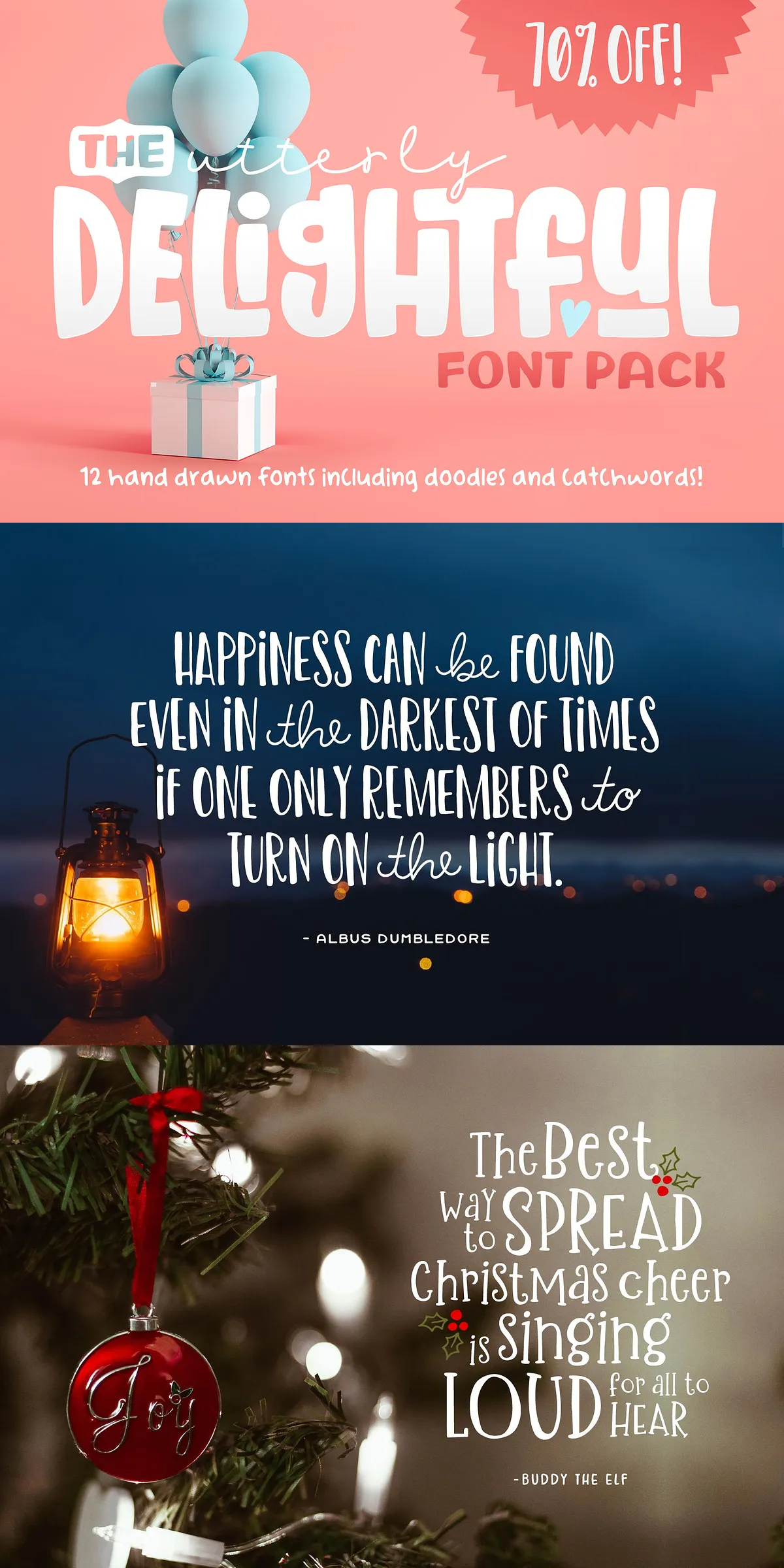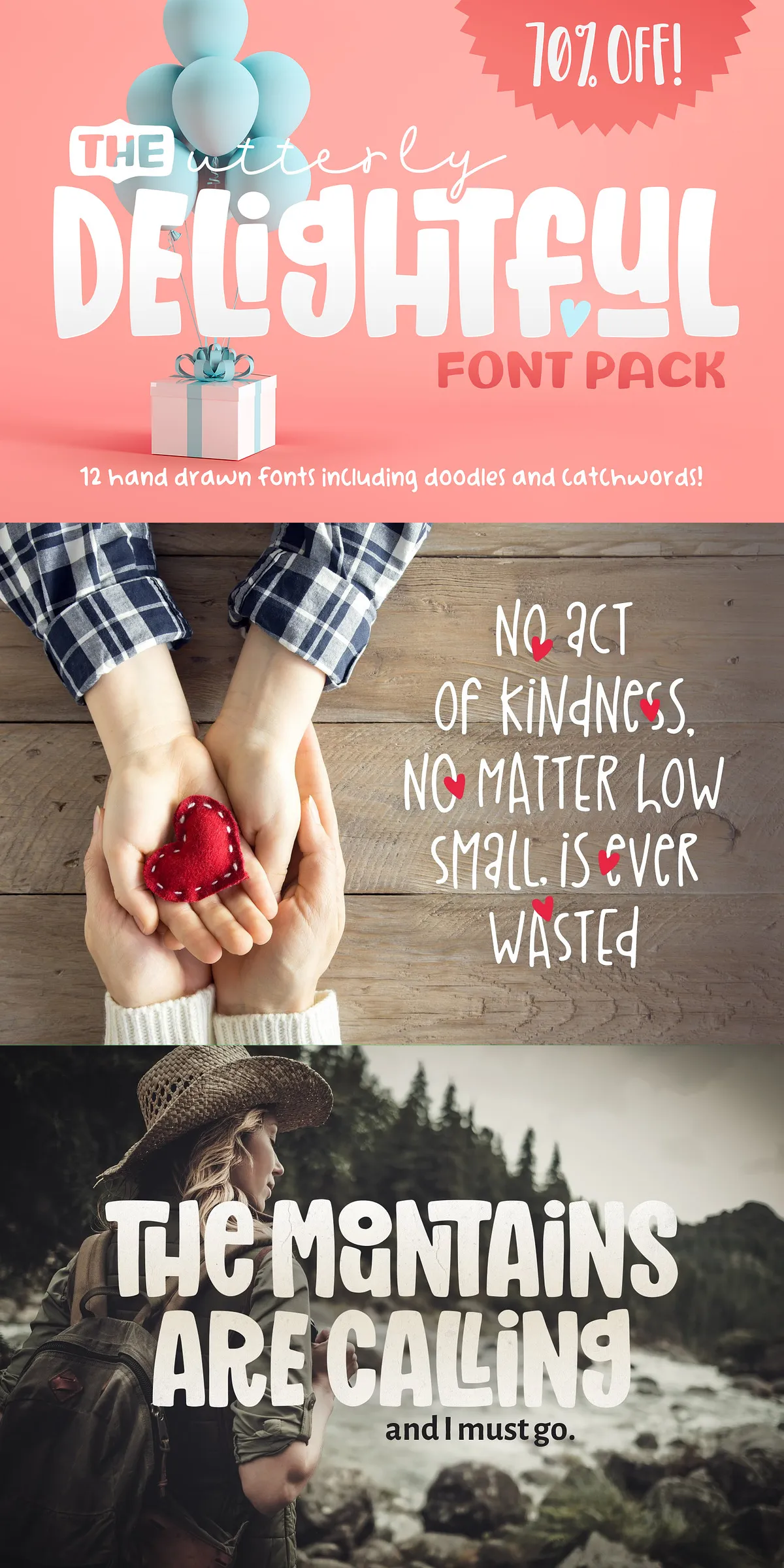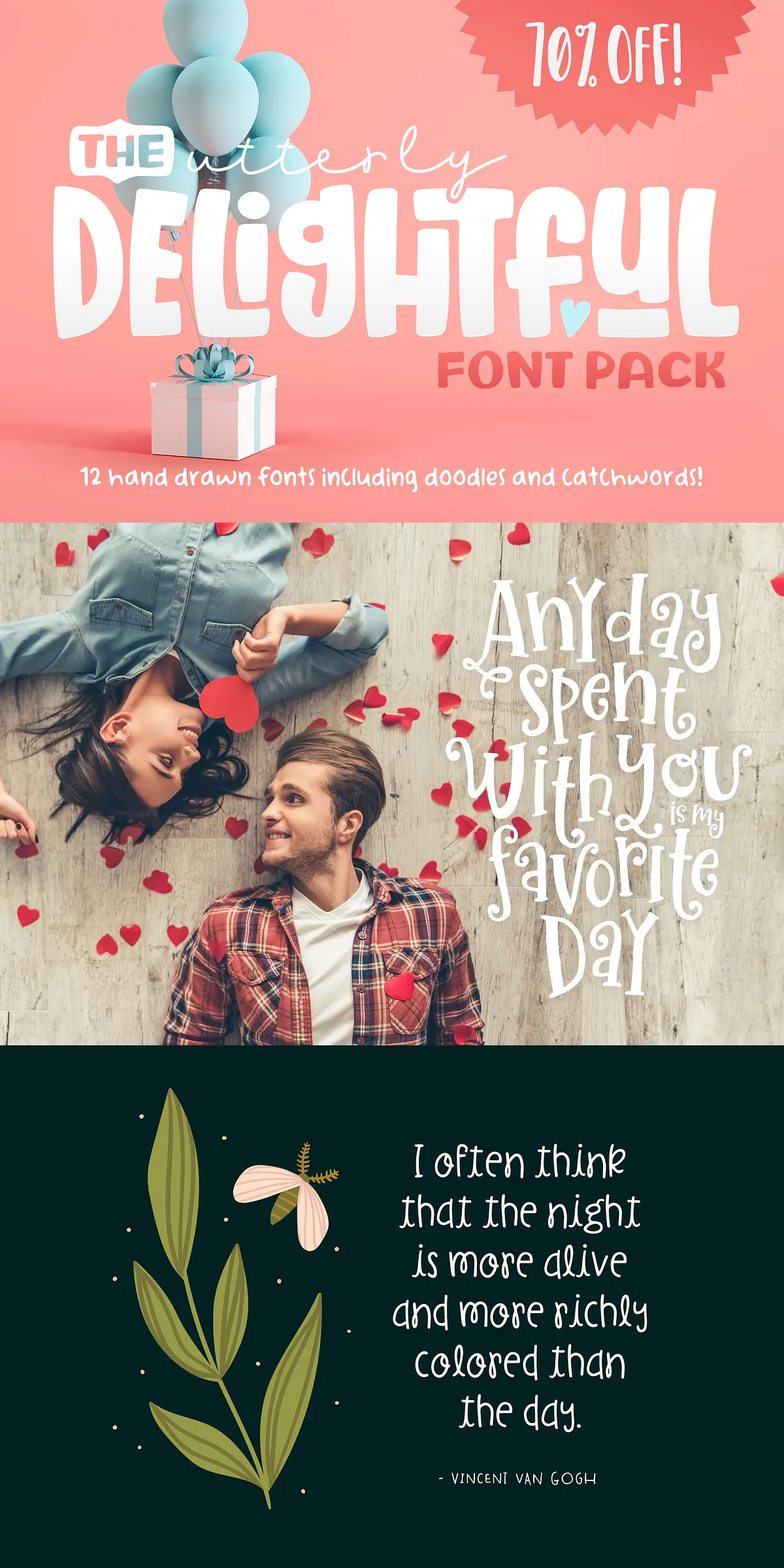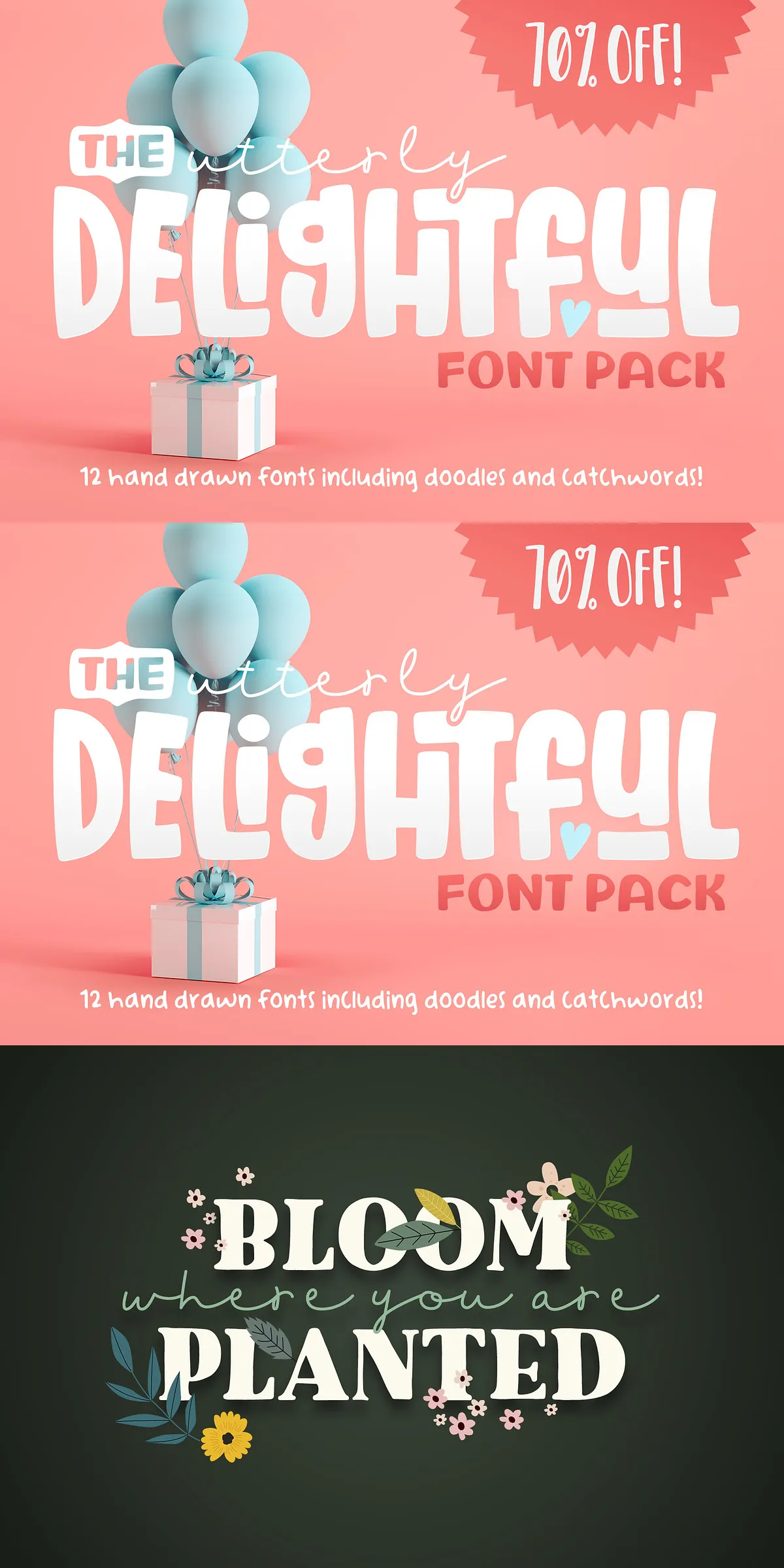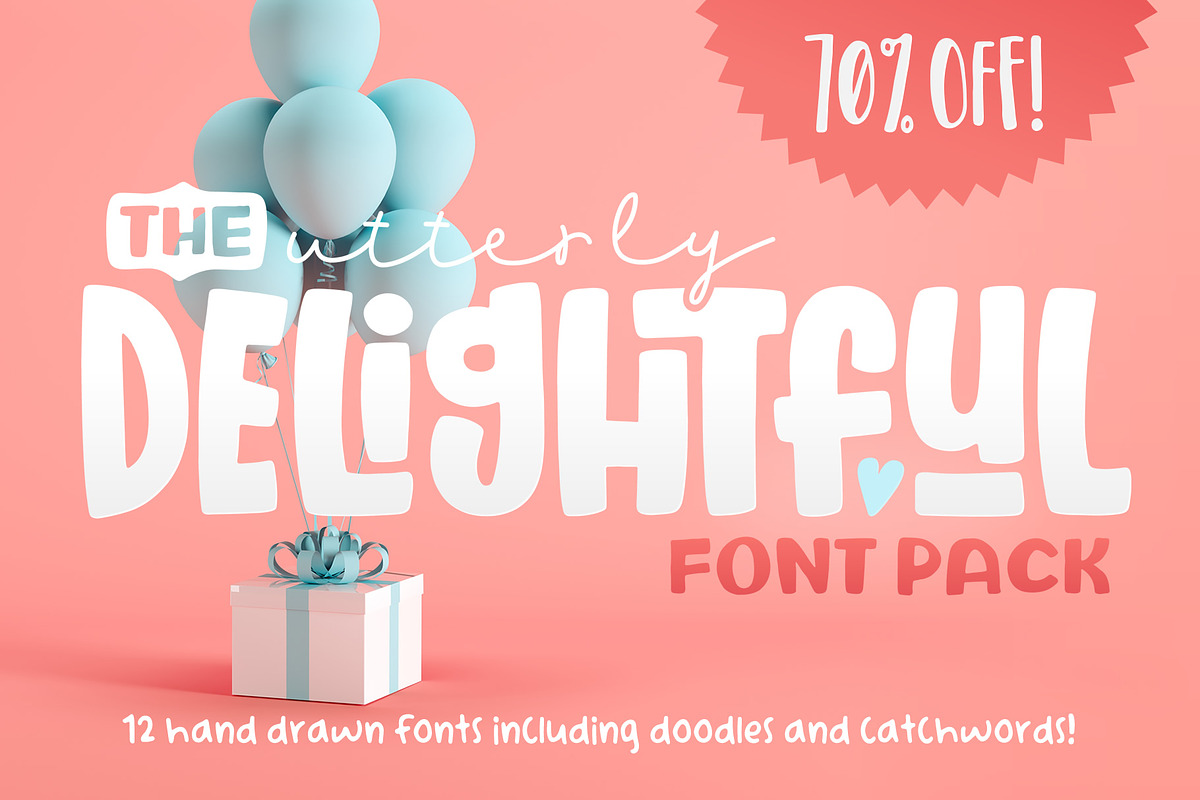
The Utterly Delightful Font Pack
Get ready to transform your designs with the Utterly Delightful Font Pack — a vibrant collection of 12 hand-drawn, one-of-a-kind typefaces, handcrafted with personality, charm, and a splash of whimsy. This isn’t just a font bundle; it’s a full creative toolkit designed for designers, artists, entrepreneurs, and anyone who believes typography should spark joy. All 12 fonts are available in OTF and TTF formats for maximum compatibility, and you’ll get over 70% off the combined value — a rare opportunity to elevate your projects with expressive, original lettering.
Beyond the fonts, you’ll receive exclusive artistic extras: playful doodles and fun catchwords that complement the character of each typeface. Use them directly in your designs for whimsical accents, social media graphics, stationery, packaging, and more. Whether you’re crafting invitations, branding a lifestyle product, or designing a children’s book, this pack gives you the tools to stand out.
Explore the Magic: 12 Unique Fonts with Individual Personality
Each font in this collection brings its own story, energy, and visual flair. No two are alike — and no two will ever make your work feel generic. Here’s a look at what you’ll find:
BellaNotte — Elegant & Refined Handwriting
With delicate flourishes and soft curves, BellaNotte delivers a touch of timeless elegance. Perfect for wedding invites, artisanal labels, and dreamy lifestyle branding. Use it to elevate simple messages into visual poetry.
Better Be Lovely & Alternates — Quirky, Friendly, and Unapologetically Sweet
This duo brings bold personality and playful vibes. The main font has a bouncy, hand-lettered rhythm, while the alternates offer expressive variations to keep your design fresh. Ideal for blog headers, product packaging, and social media quotes.
Charley and Beau — Rustic, Hand-Sketched Charm
Think pencil-drawn on the back of a napkin at a countryside café. Charley and Beau adds natural imperfection and warmth. Use this font for rustic branding, small-batch product labels, or casual branding with heart.
C and B Catchwords & Handwriting — Interactive Typography for Engagement
These fonts turn words into conversation starters. The catchwords are short, punchy phrases with expressive shapes, while the handwriting version brings intimacy and authenticity. Use them to spark emotion in callouts, social media posts, or mood boards.
Childlike & Childlike Condensed — Pure Playfulness
Designed to echo genuine childlike wonder, these fonts are perfect for kids’ books, nursery branding, educational materials, and any project that needs to feel light, joyful, and imaginative. The condensed version is ideal for tight spaces with big impact.
Flowery & Flowery Stylized — Botanical Beauty in Every Curve
These fonts bloom with floral motifs and soft, organic lines. Use them for floral-themed products, event branding, or anything that needs a touch of garden elegance. The stylized version adds extra decoration for standout visuals.
Garden Walk Script & Serif — Cozy, Earthy, and Inviting
Versatile and soulful, Garden Walk combines flowing script and clean serif styles. Use the script for elegance and the serif for grounded presence. Great for blogs, recipe cards, journaling, and cottagecore branding.
Gingers Slab Serif — Bold, Confident & Modern
A striking slab serif with strong lines and balanced weight. Use this to make headlines pop in editorial design, posters, or bold brand statements. It’s powerful but not harsh — it commands attention with grace.
Lemon Slice & Alternates — Bright, Zesty, and Refreshing
Perfect for spring, summer, or citrus-inspired branding. The base font is lively and slightly bouncy, while the alternates add variety for dynamic layouts. Use it for food packaging, drink labels, or vibrant event designs.
Mighty Mountain & Related Fonts — Strong, Bold, and Nature-Inspired
These fonts feel like mountain trails and open skies. Mighty Mountain Regular delivers strength and presence, while the other variations let you play with weight and spacing. Ideal for outdoor brands, adventure travel, or rugged lifestyle visuals.
Spring Showers & Doodles — Freshness and Motion in Every Letter
Evoking raindrops, dew, and early bloom, this font captures the energy of spring. The included doodle pack adds rain, flowers, and small creatures to enhance your designs. Use this for seasonal content, newsletters, greeting cards, or garden-themed branding.
Twinkle the Star & Catchwords — Magic, Wonder, and Childhood Nostalgia
The star-shaped letters and dreamy curves of Twinkle the Star bring a sense of wonder. The catchwords are built for inspiration — perfect for personal affirmations, motivational quotes, and whimsical branding that lifts the spirit.